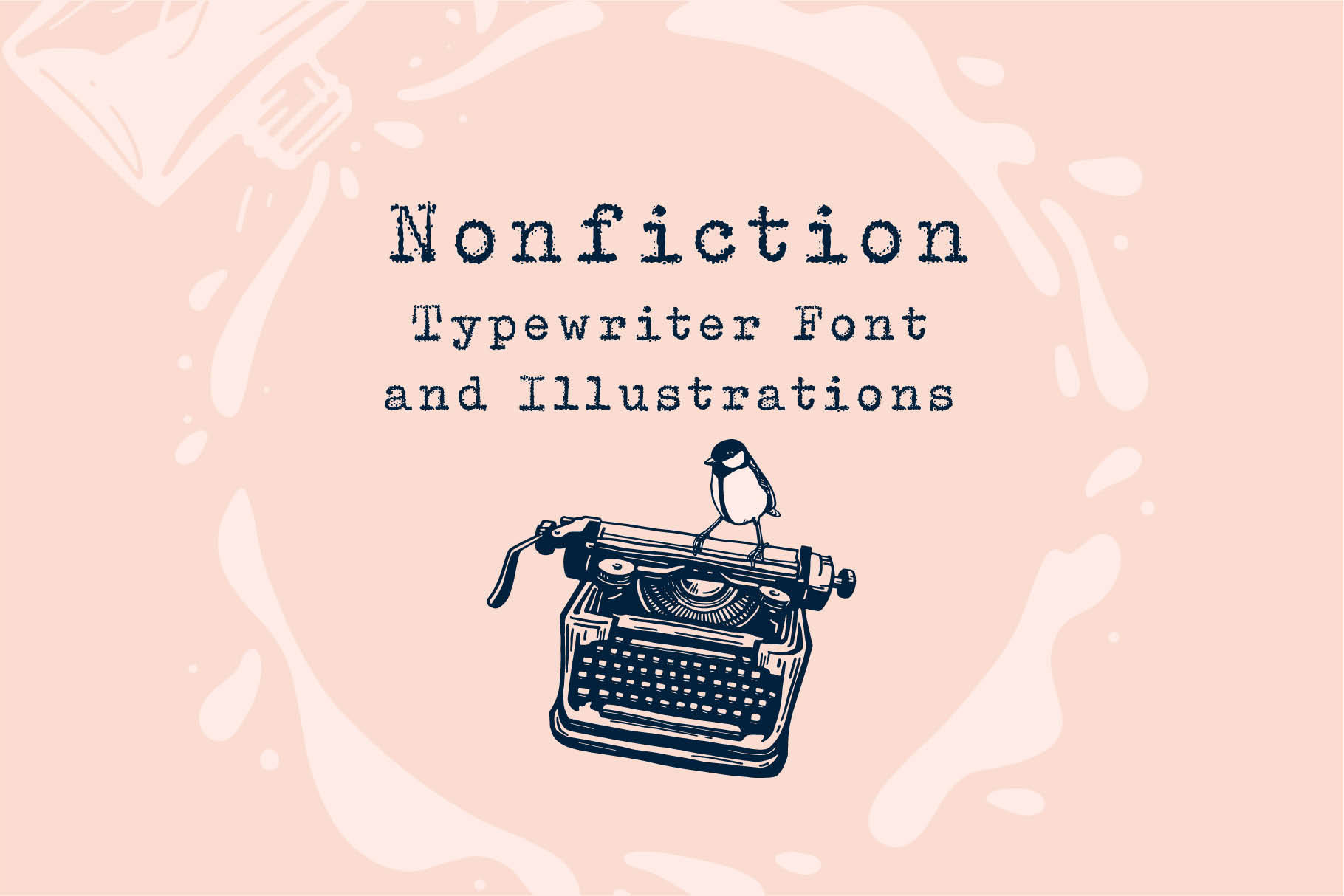
Nonfiction Typewriter Font & Extras
Nonfiction Typewriter Font & illustrations & extras
Nonfiction Typewriter Font is made with my grandfather's rusty typewriter. It includes 305 glyphs (uppercase, lowercase, punctuation, numbers, symbols, marks).
You will also find vector illustrations, frames, watercolor, and paper textures.
This is one of my favorite fonts. It looks just like a typewriter. And the images are beautiful. I have used them on IG and in blog posts with poetry I've written and they added a perfect accent!